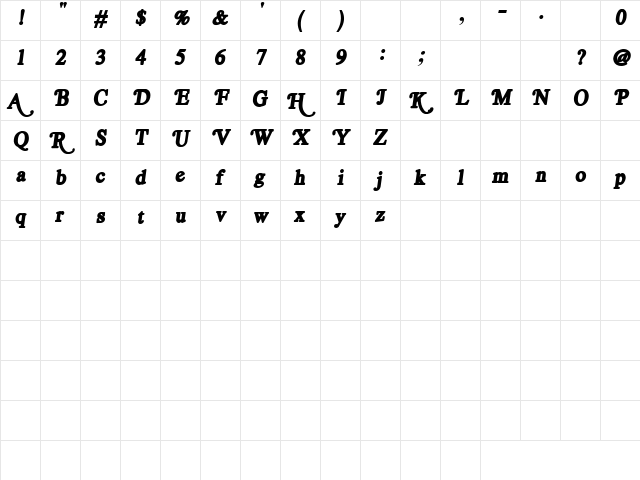
Royal Acid Bold
Design Context for Royal Acid Typeface
Royal Acid offers clean, dependable letterforms without strong stylistic allegiance, making it a practical choice for designers who need flexibility. Its bold stroke weight gives it real presence on the page.
Pro Tip: Use Royal Acid in both headline and body roles to test its range before committing to a single application.